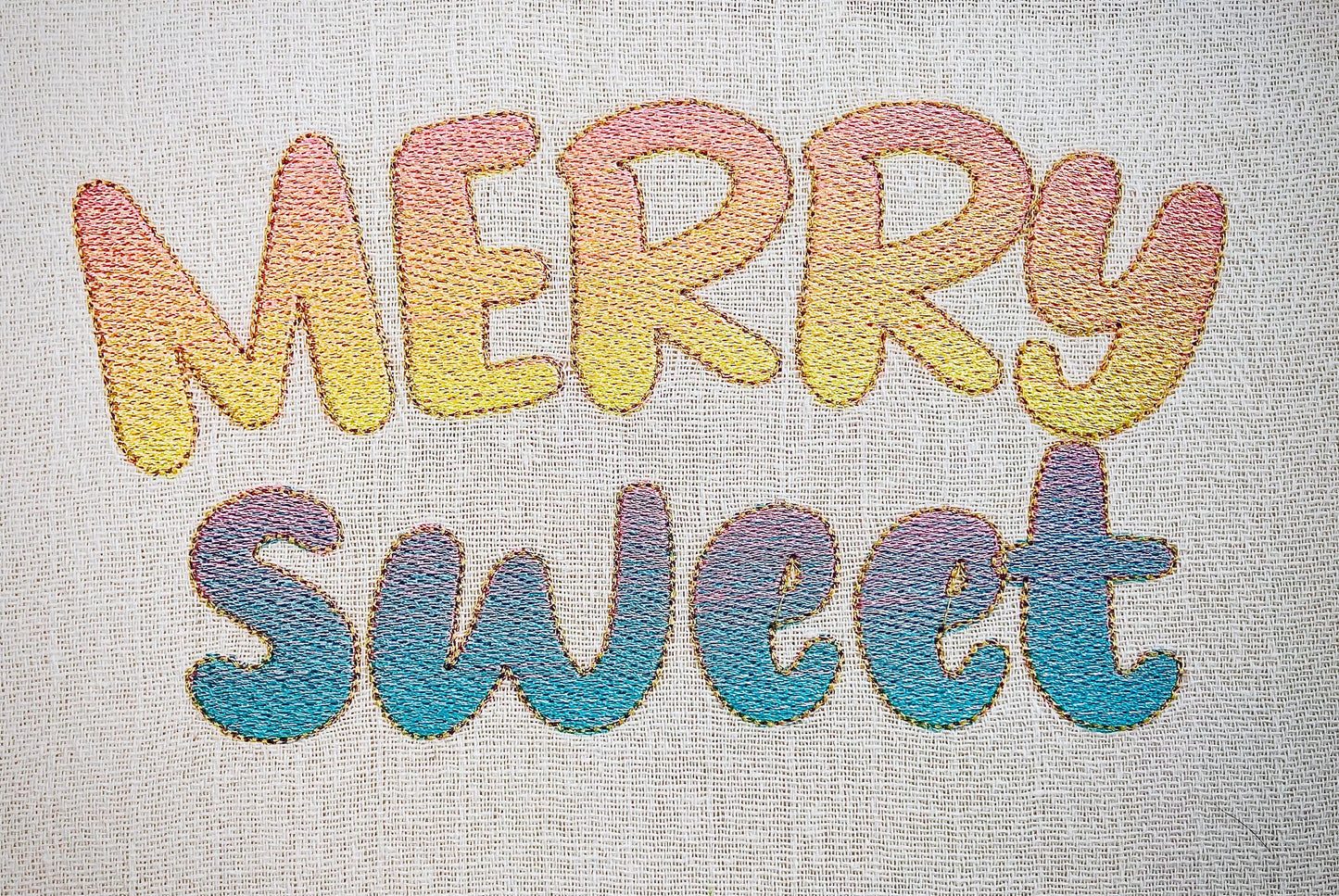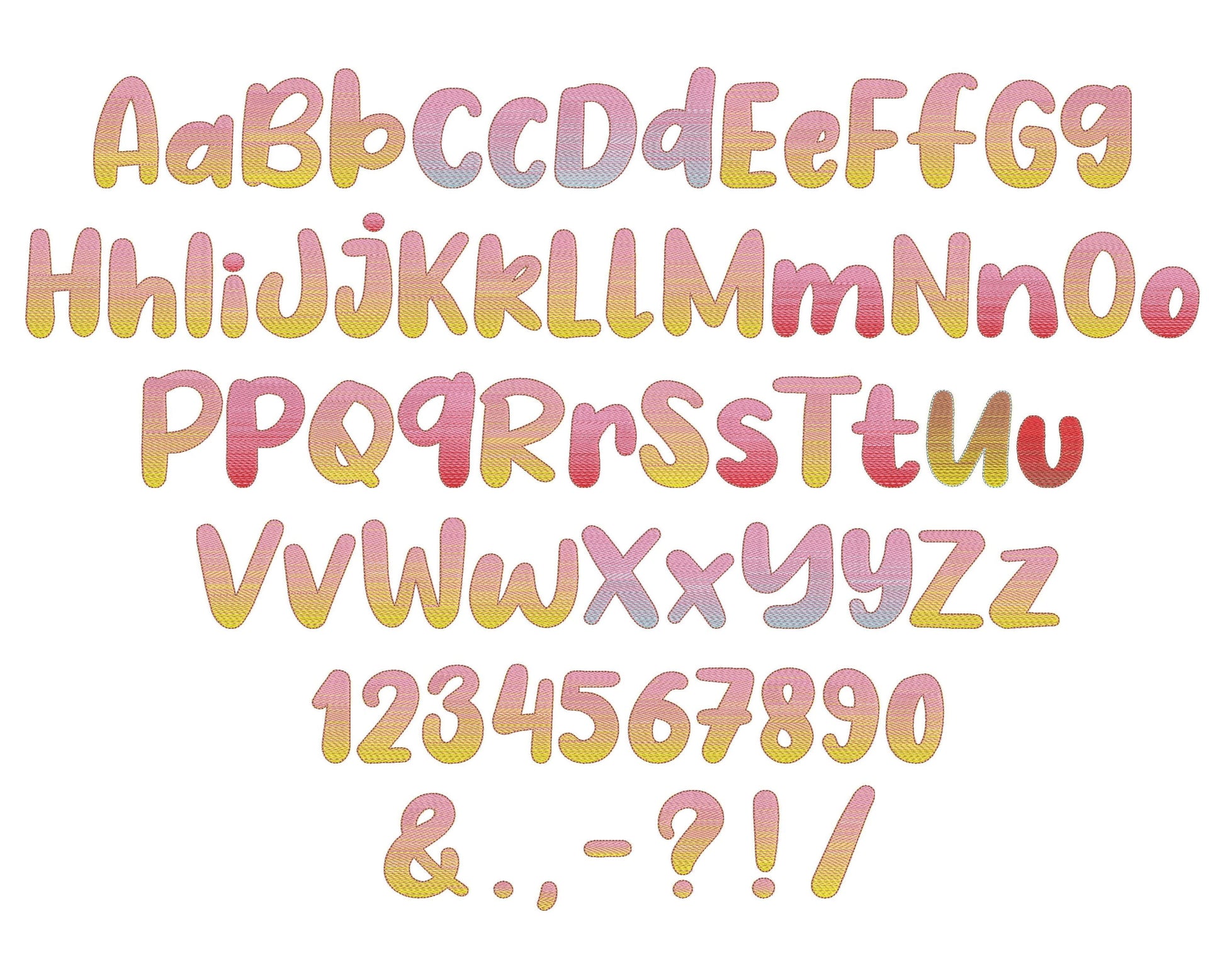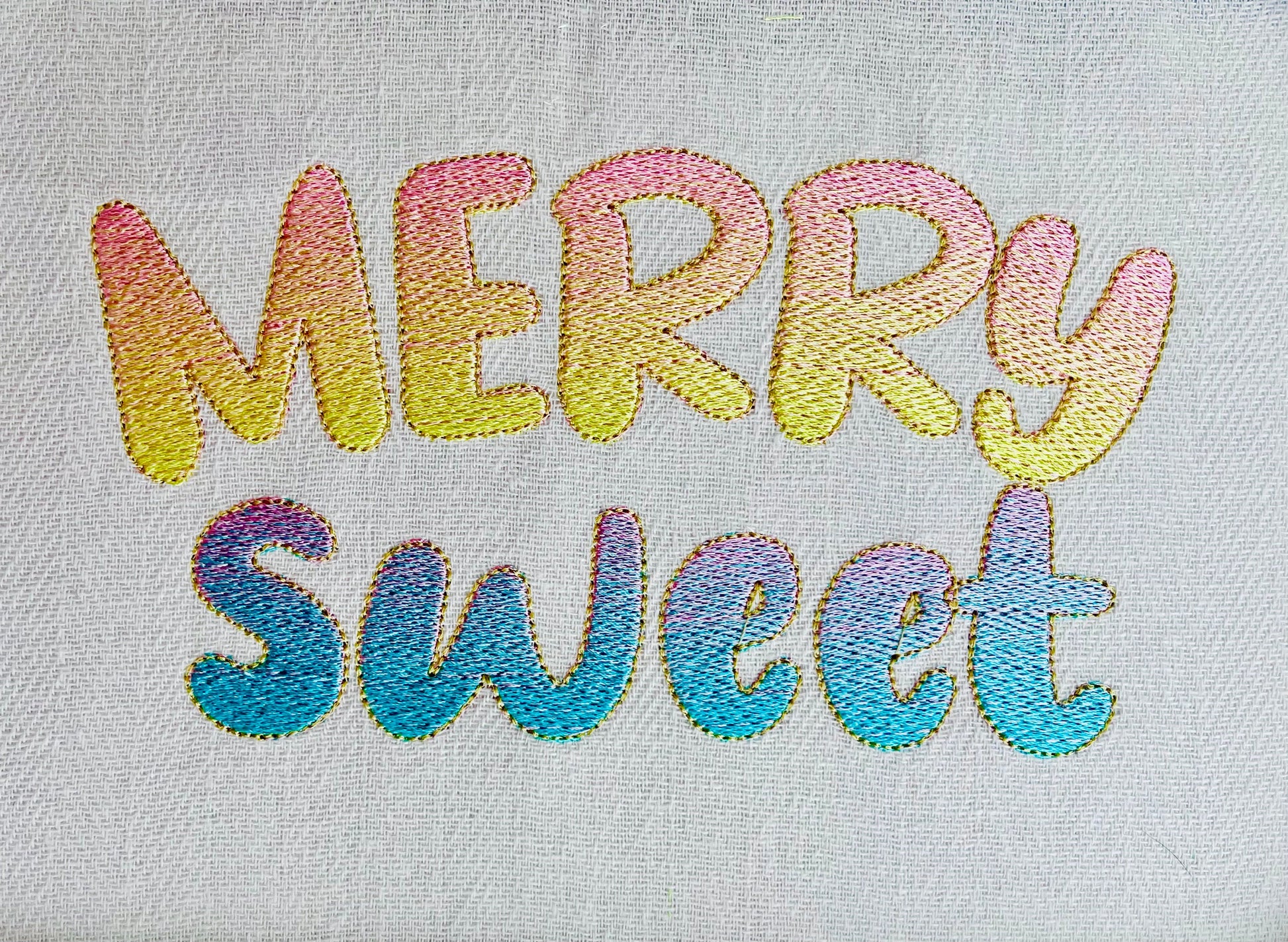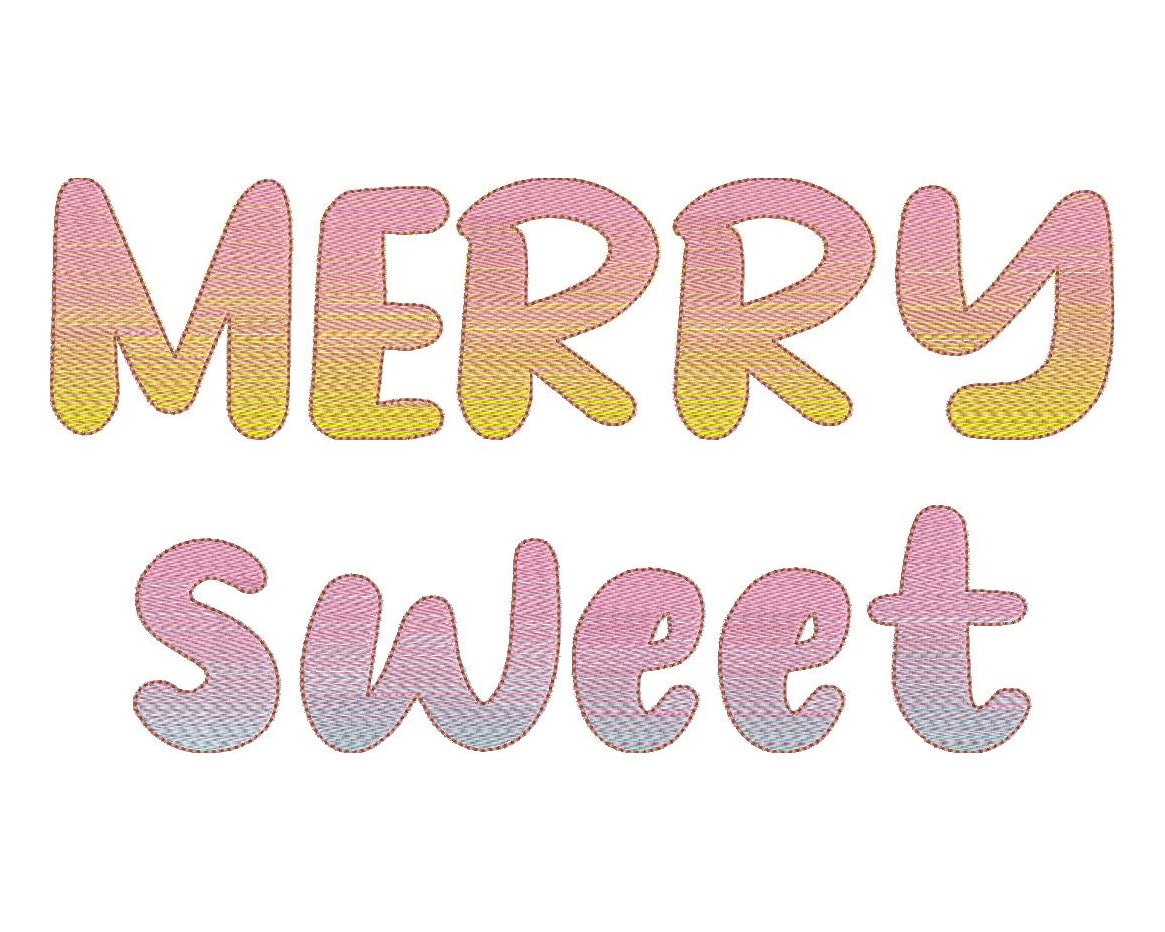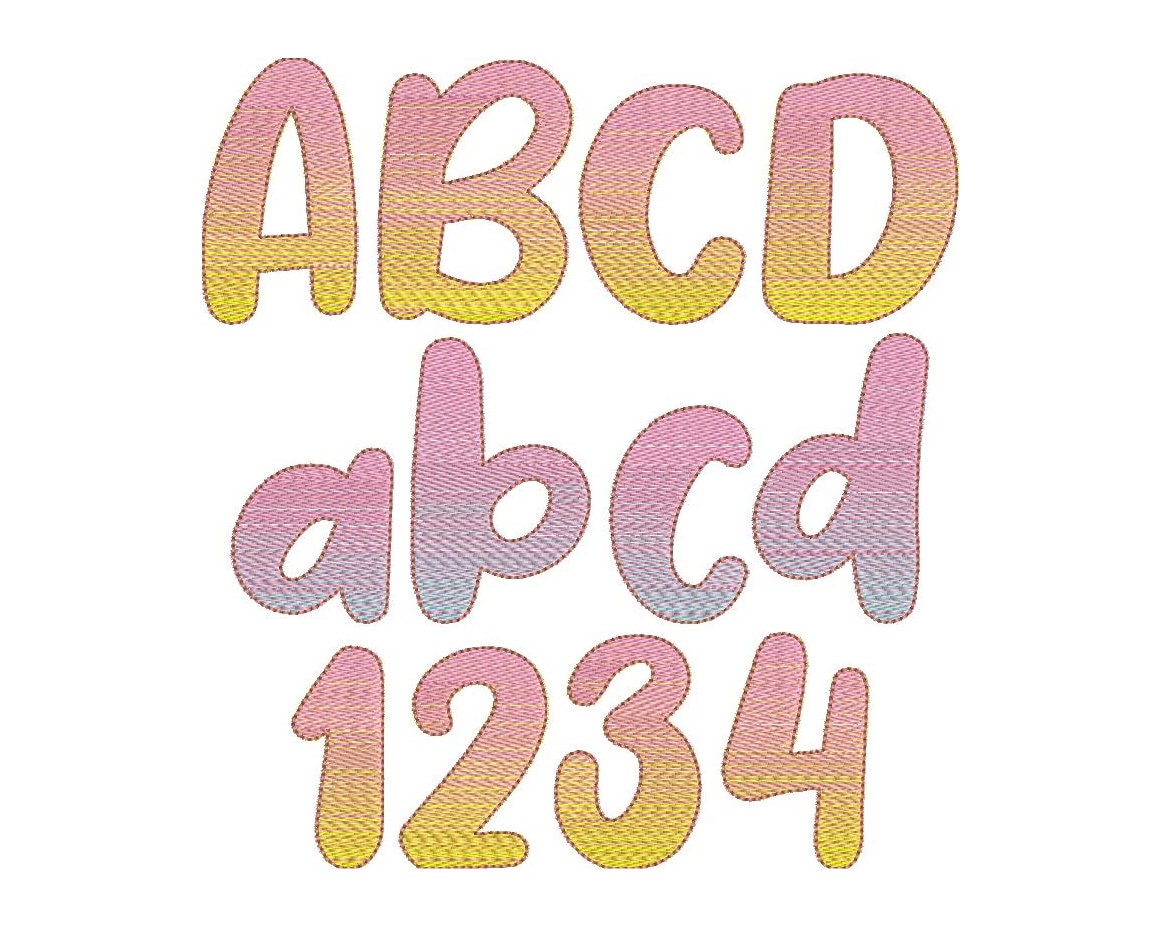
Or click to open the linkAn iridescent font stitched with two ordinary thread colors that blend into a rainbow gradient. No special thread needed. Lovely for names, monograms and sayings.
Each letter uses two regular thread colors; the stitch pattern shifts from one color to the other, so the letter looks iridescent all by itself. Uppercase and lowercase letters, numbers 0 to 9 and punctuation, in seven sizes: 1, 1.5, 2, 2.5, 3, 3.5 and 4 inches.